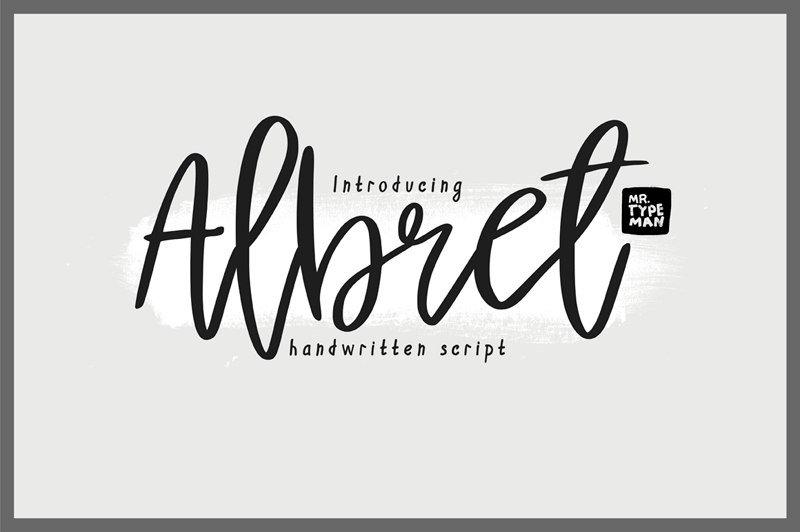
Preview and download Albret Font. Created by Mr. Typeman in Script Handwritten styles with Demo license.
Font name: | Albret |
Author: | Mr. Typeman |